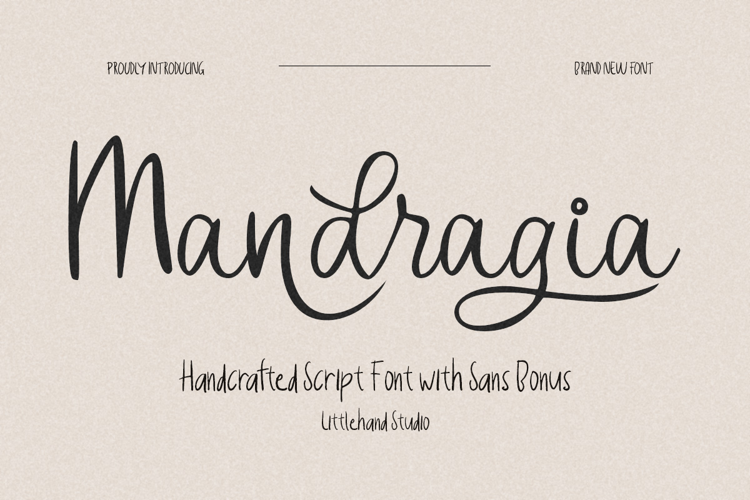
Mandragia Script Font
3 font family styles
Script Style
Sans Bold Style
Sans Regular Style
Mandragia feels like a quiet signature with a soft, natural flow—smooth, relaxed, and effortlessly stylish. Paired with a clean sans bonus, perfect for branding, invitations, packaging, or calm lifestyle visuals that lean into a modern, down-to-earth vibe.